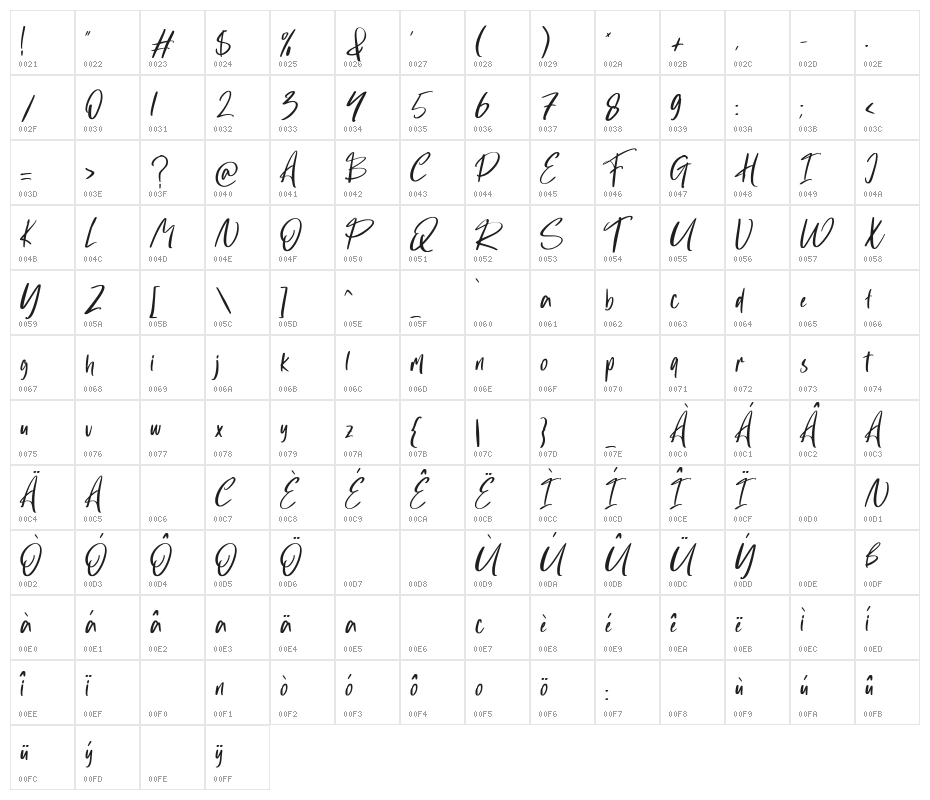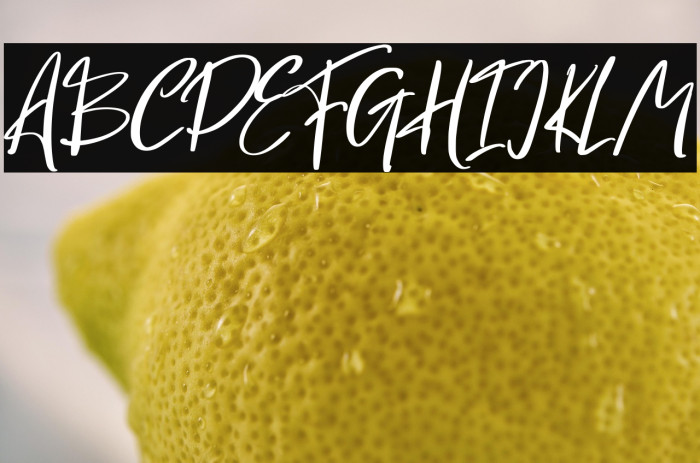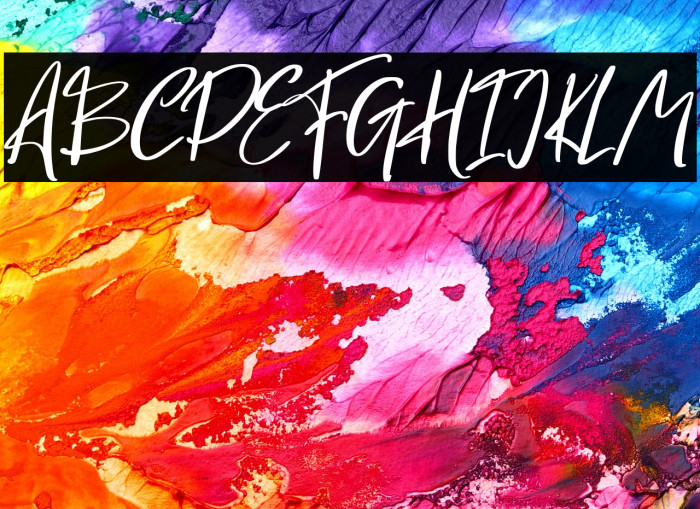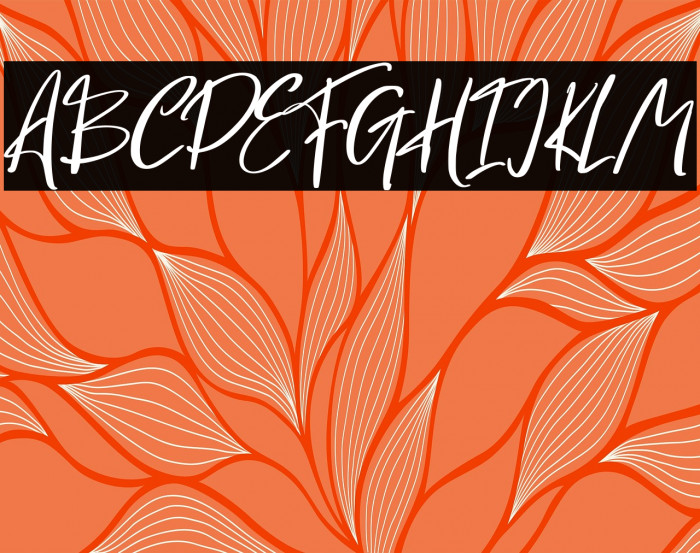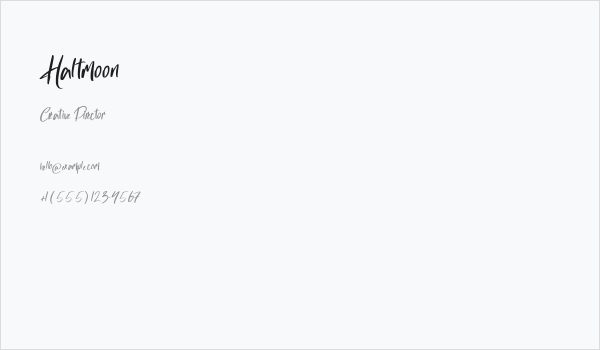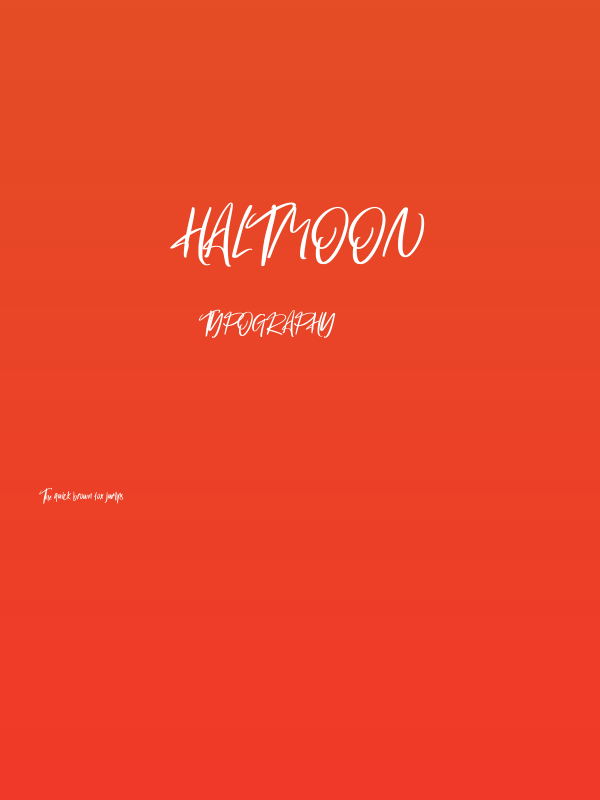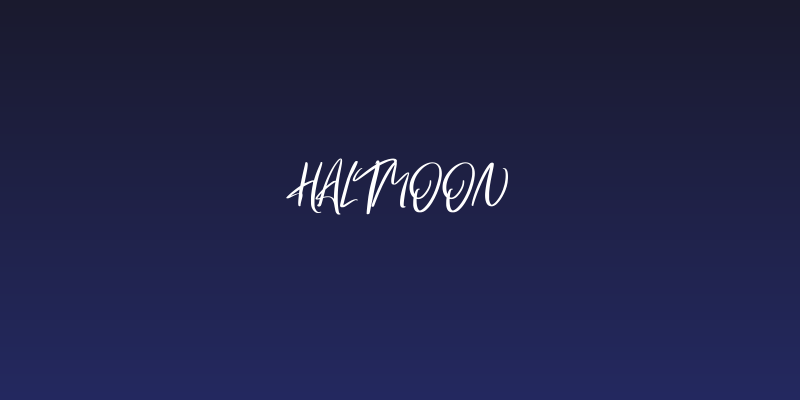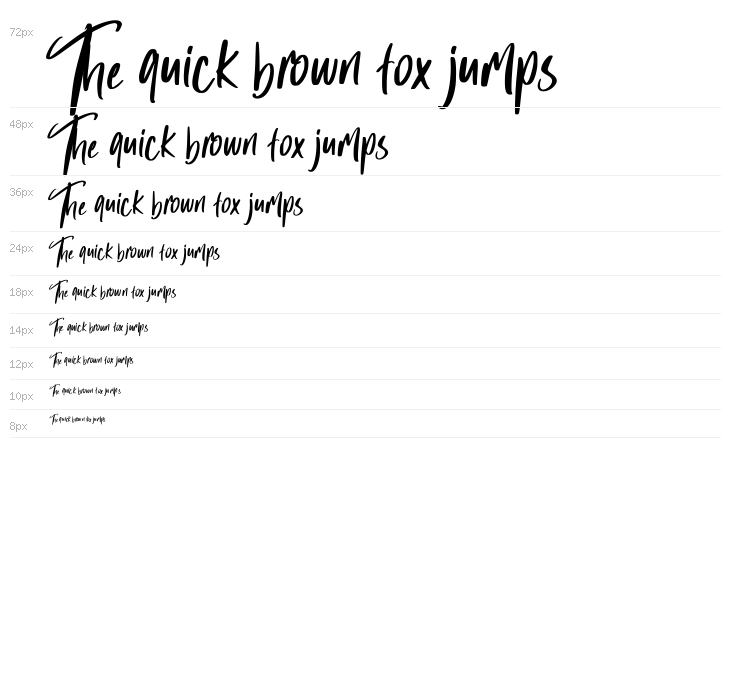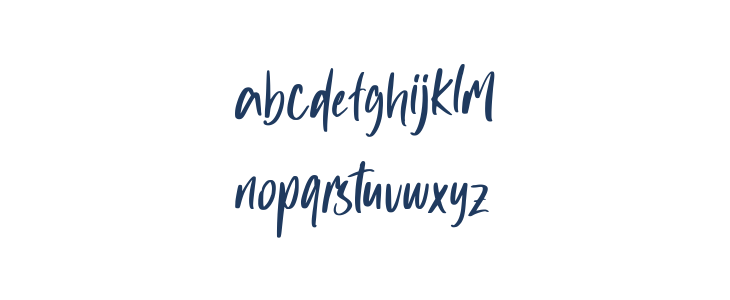
Haltmoon Font
Haltmoon Description
This font exudes a dynamic and expressive style, characterized by its fluid, handwritten appearance. The letters are crafted with a natural flow, giving a sense of movement and energy. The uppercase letters are bold and slightly slanted, while the lowercase letters maintain a consistent rhythm, enhancing readability. The numerals and special characters are designed with the same lively flair, ensuring a cohesive look across all text. This font's playful yet sophisticated style makes it suitable for creative projects that require a personal touch.
| Proposed Projects | Ideal for branding, invitations, greeting cards, and social media graphics. |